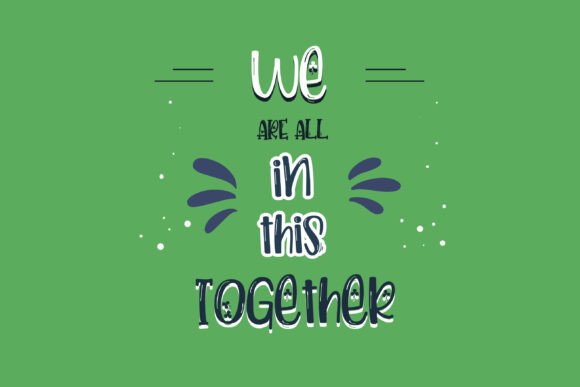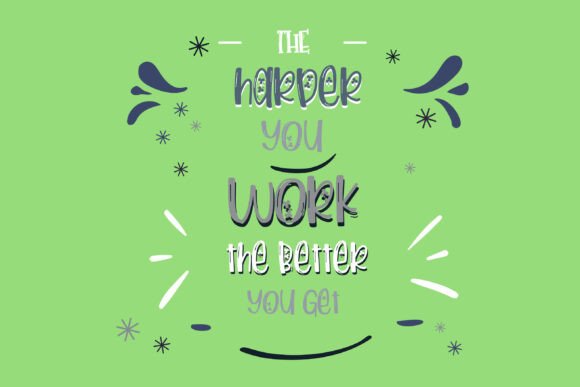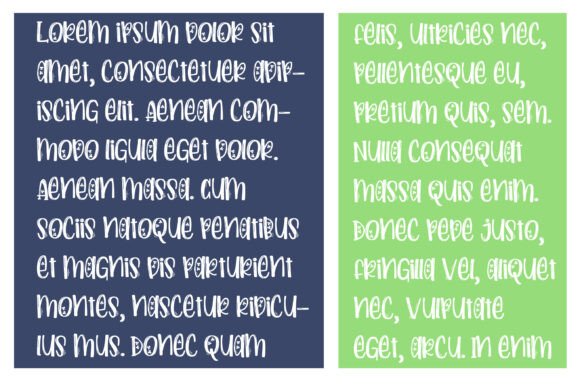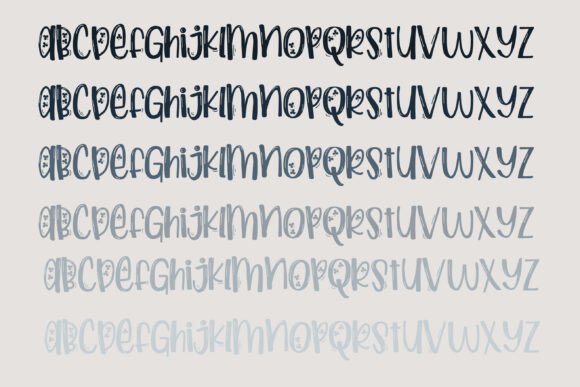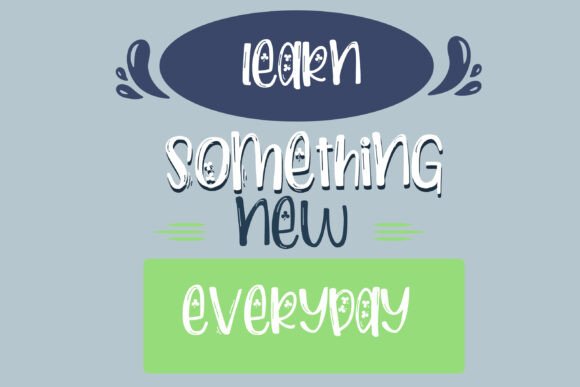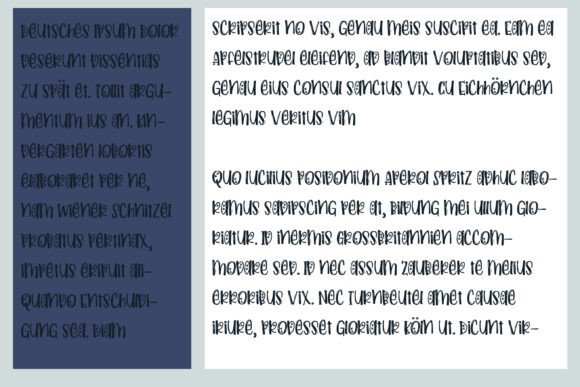
Introduction to Pocketful of Patty Font
This hand-crafted sans serif is bouncy, fun, and features clover throughout.
A hand-crafted font is a font that is designed to look like it was written by hand It is often used for invitations, greeting cards, and other items.
Key Features of Pocketful of Patty Font